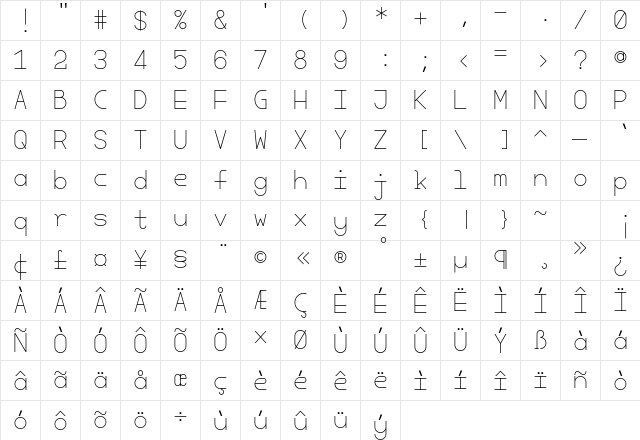
Cherry Light
| Designer | Amin Abedi |
Design Context for Cherry Typeface
Cherry is a composed and adaptable typeface that performs quietly and consistently across a wide range of design contexts. The delicate stroke weight brings airiness and refinement to layouts.